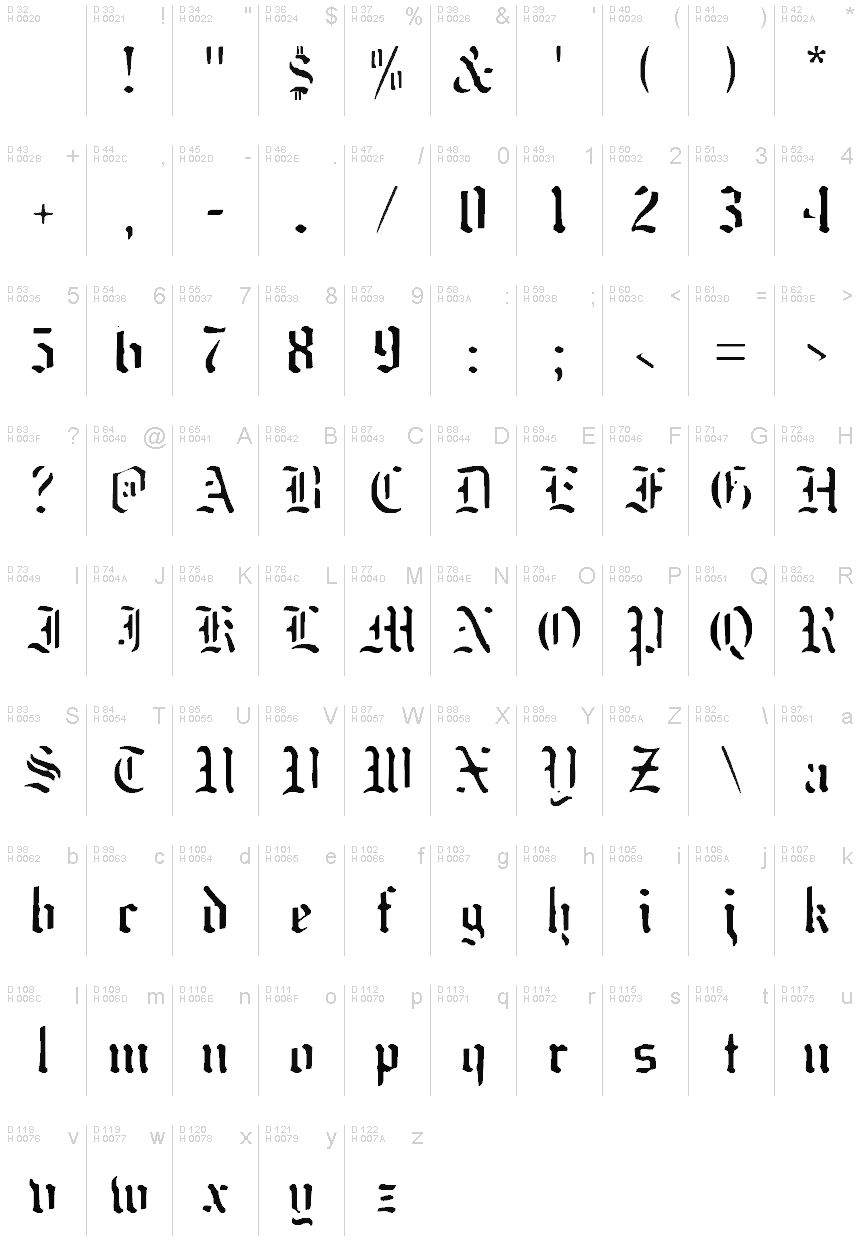
naked monk
Naked Monk is a captivating Gothic font that evokes the rugged charm of medieval times. Crafted by Sokratype, this typeface boasts a striking, robust aesthetic with its sharp, angular letterforms and distinctive ligatures. The font's raw, austere appearance lends itself seamlessly to a range of design applications, from rustic branding and editorial layouts to historical narratives and dark fantasy projects. Its versatility and visual impact make Naked Monk a compelling choice for designers seeking to imbue their work with a sense of timeless, unyielding elegance.
The font's defining features, such as its pronounced serifs and dramatic flourishes, create a sense of depth and texture that elevates any design. Naked Monk's versatility extends to both display and body text, allowing designers to achieve a cohesive, immersive visual experience across a variety of mediums.